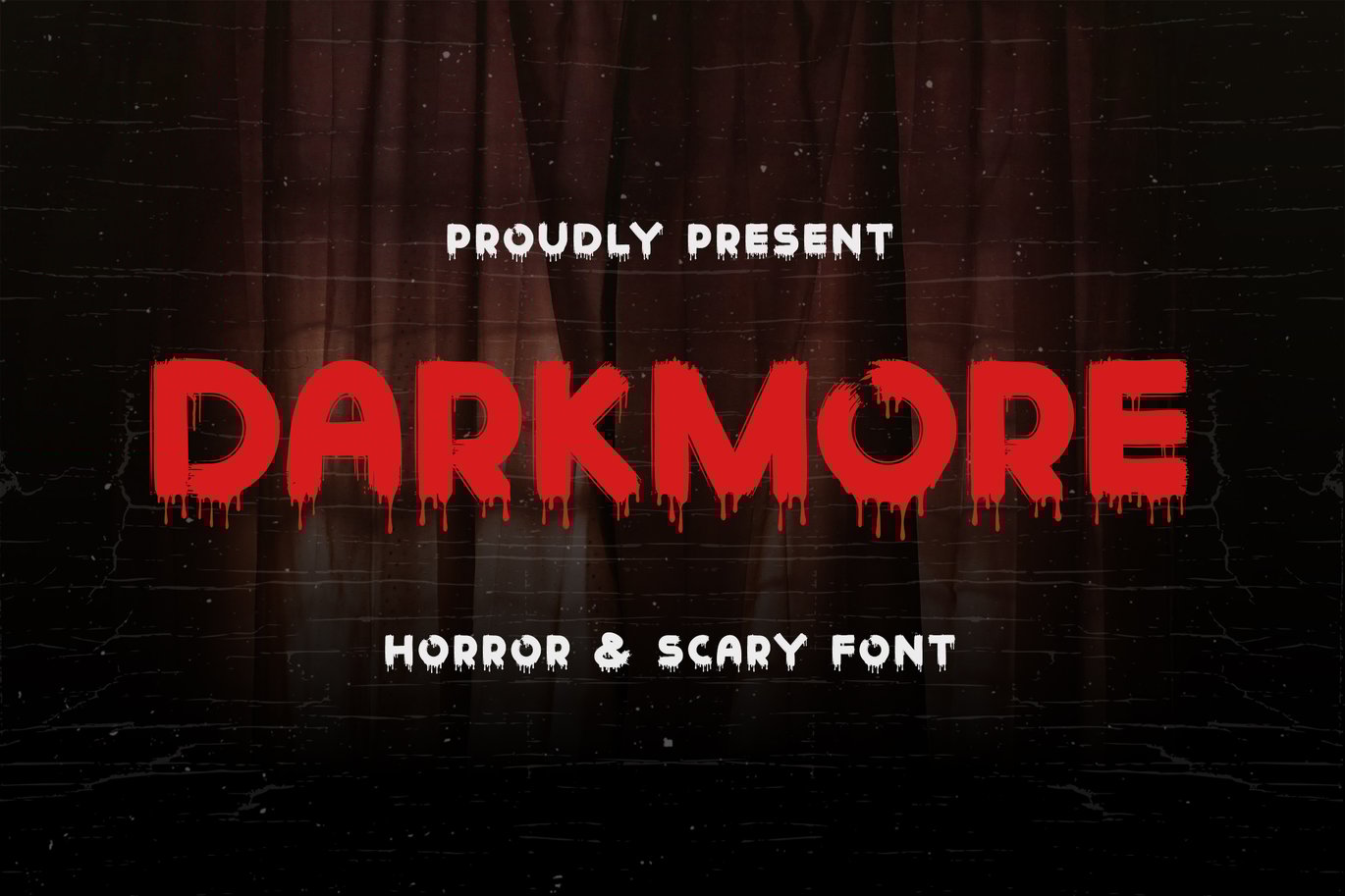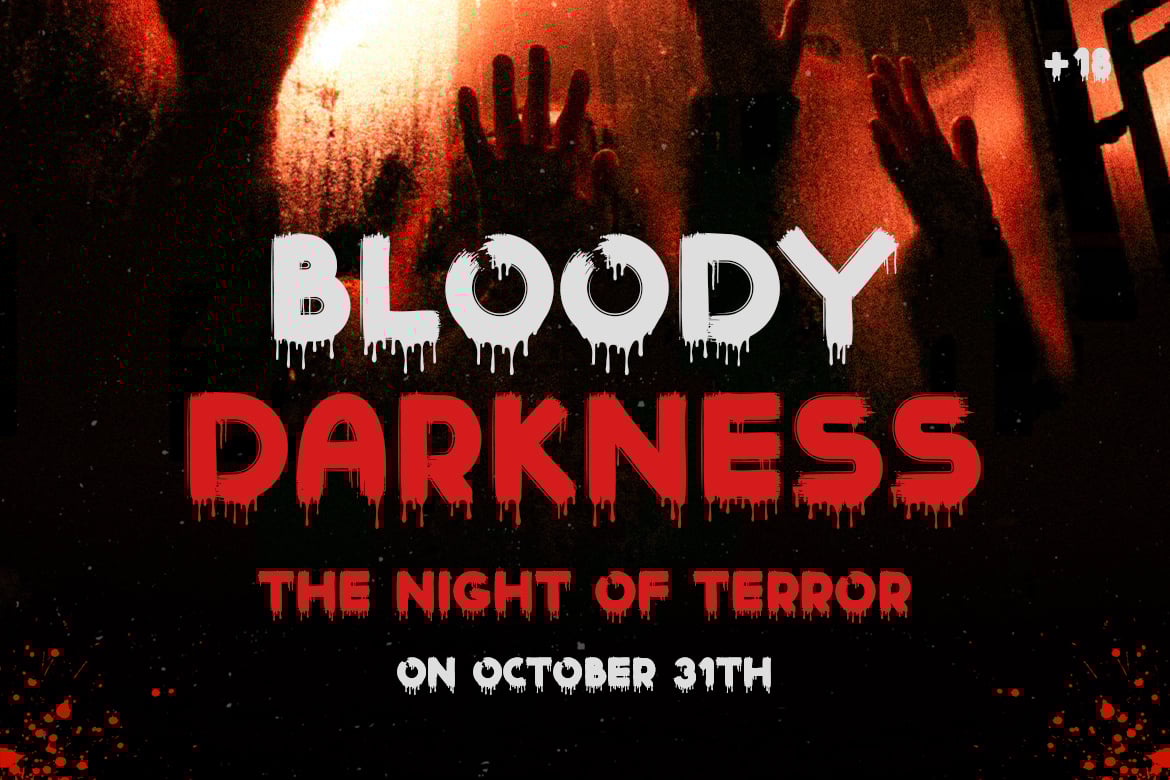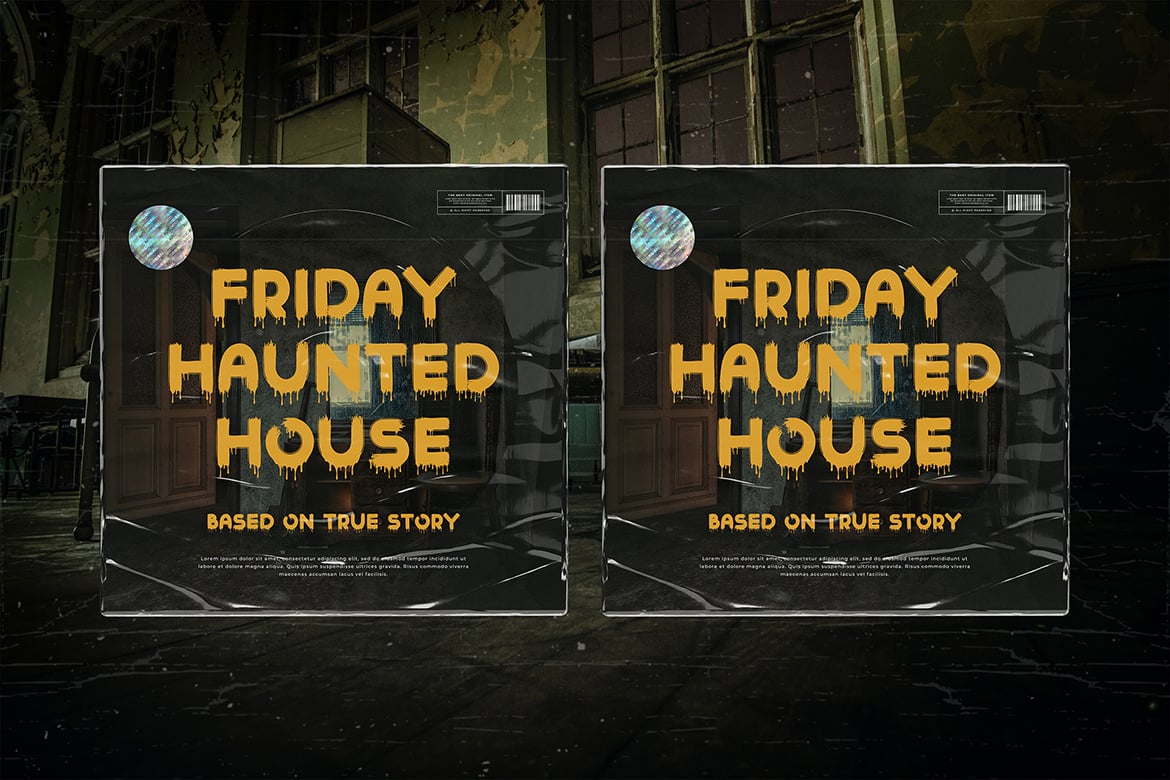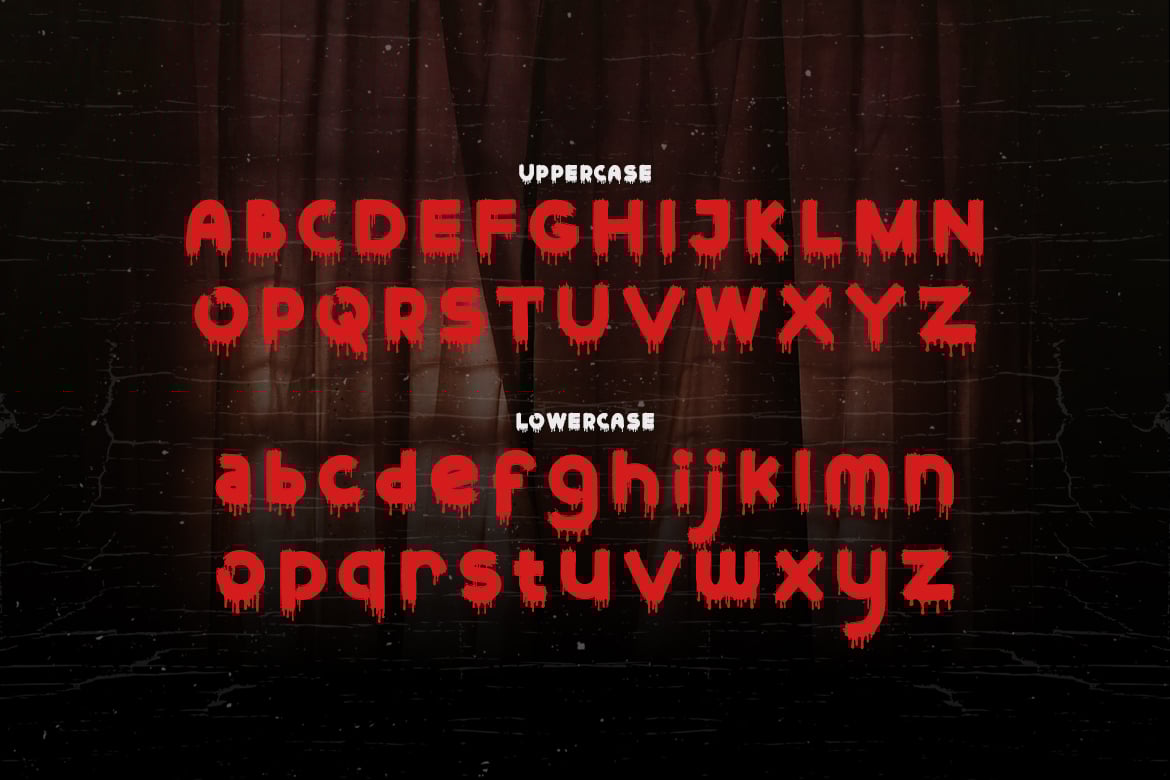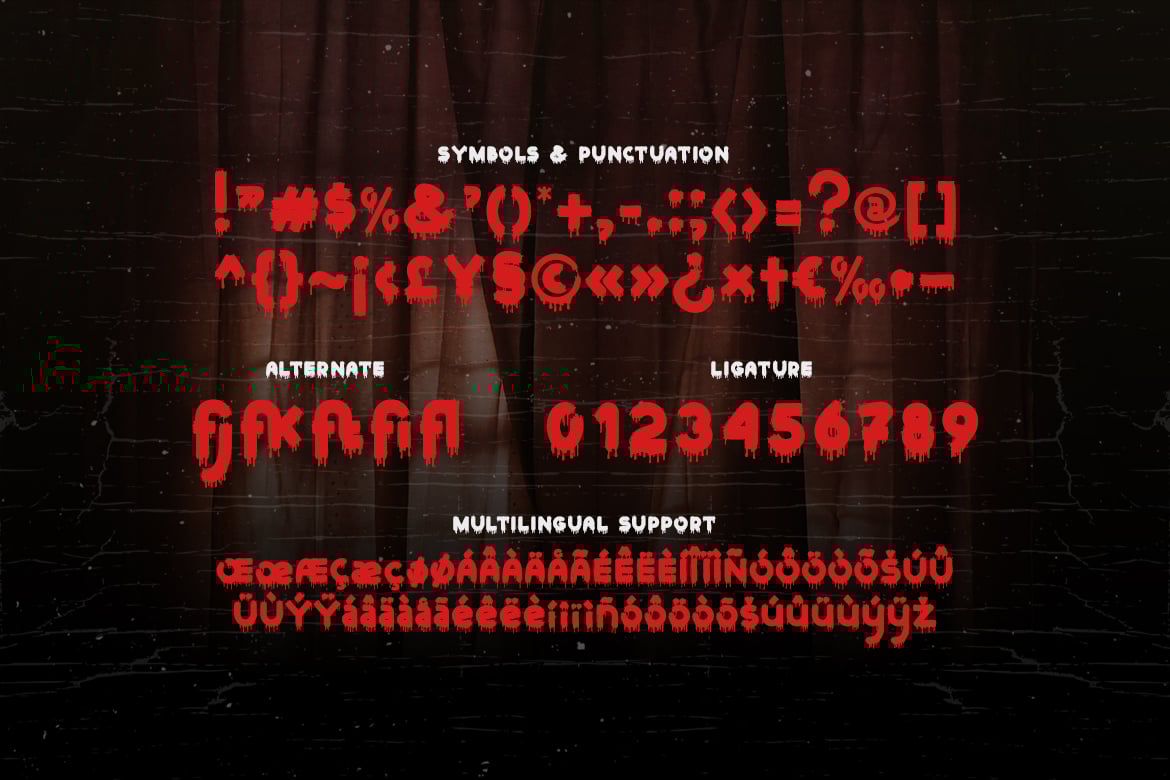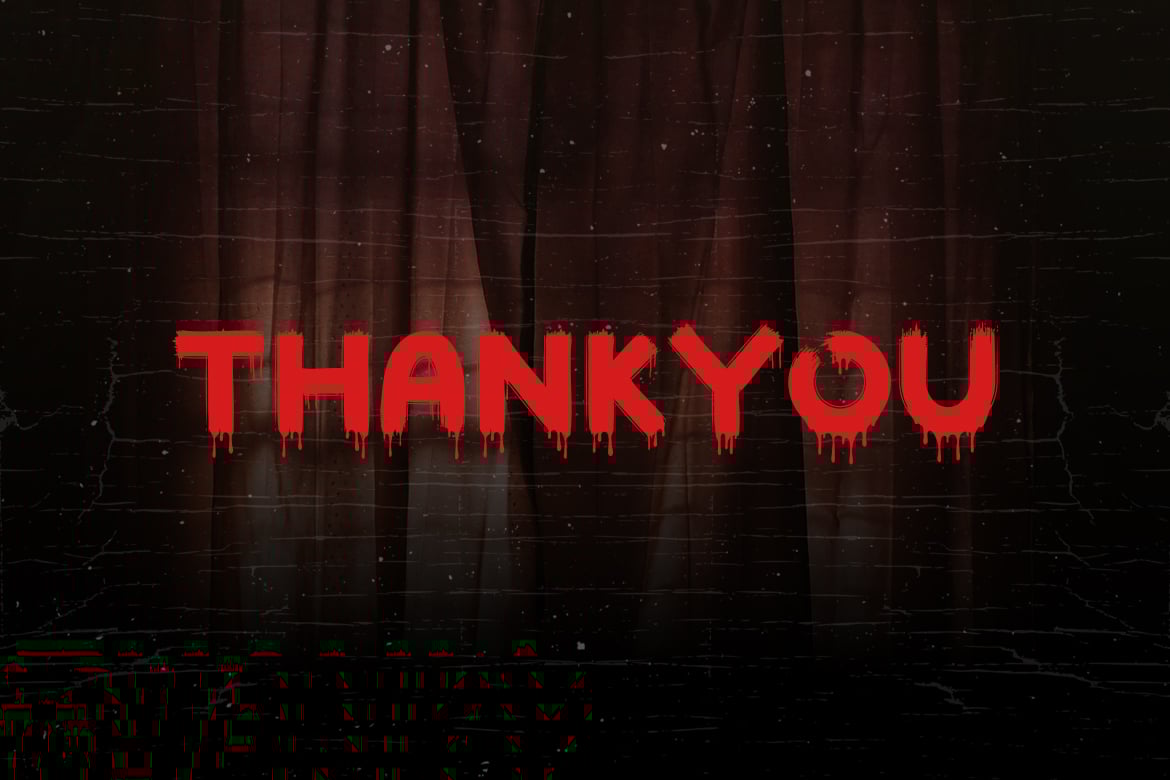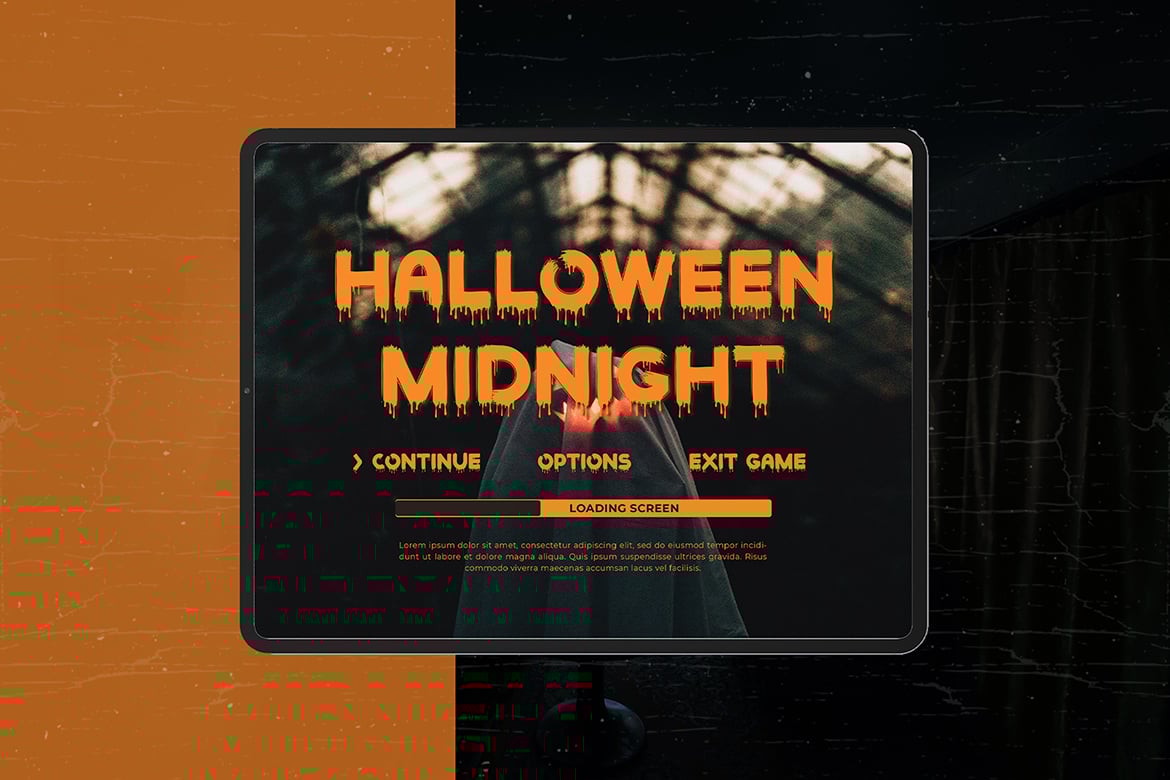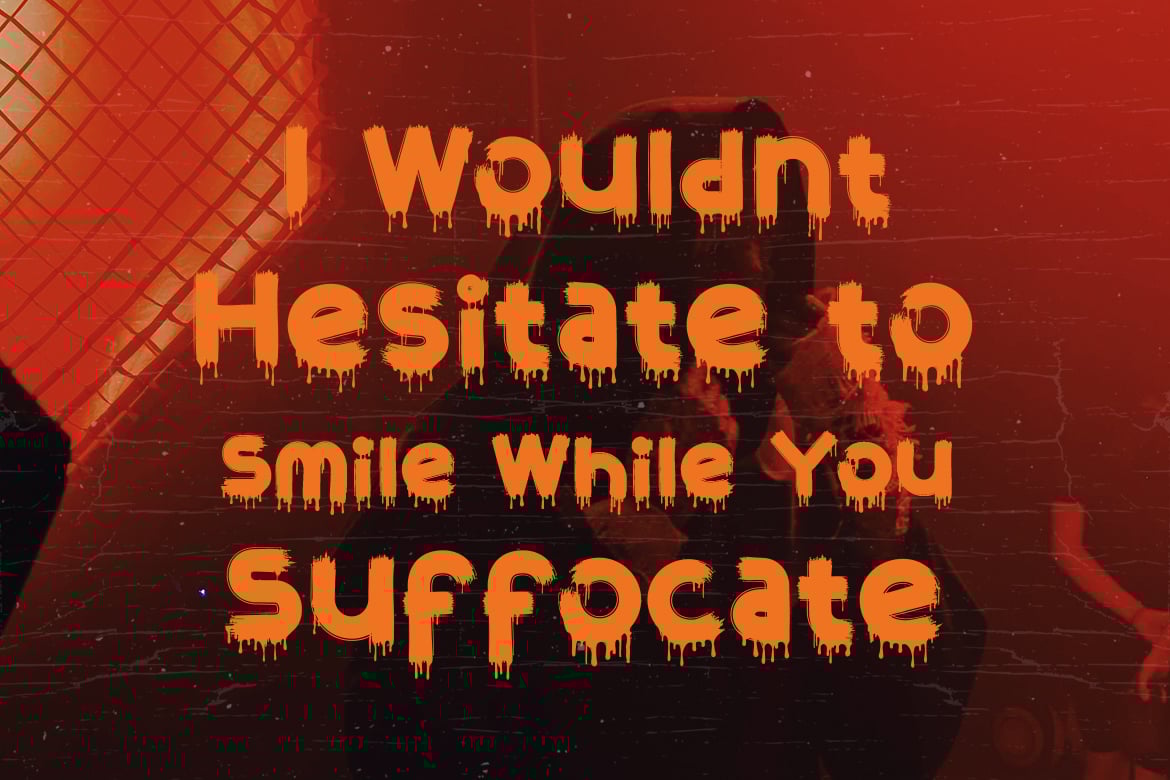
Darkmore – Horror and Scary Font
Looking for a font that will give your designs a spine-chilling feel? Look no further than “Darkmore” – a terrifying and eerie display font that’s perfect for all your horror and scary-themed projects.
“Darkmore” is a font that’s sure to send shivers down your audience’s spine. Each letter is designed to look like it’s been scribbled in blood or carved out of stone, adding a touch of authenticity and horror to your text.
Whether you’re creating posters for a haunted house, designing a horror movie title sequence, or crafting spooky social media graphics, “Darkmore” is the perfect font for the job. It’s also great for use in book covers, album art, and other creative projects that require a touch of the macabre.